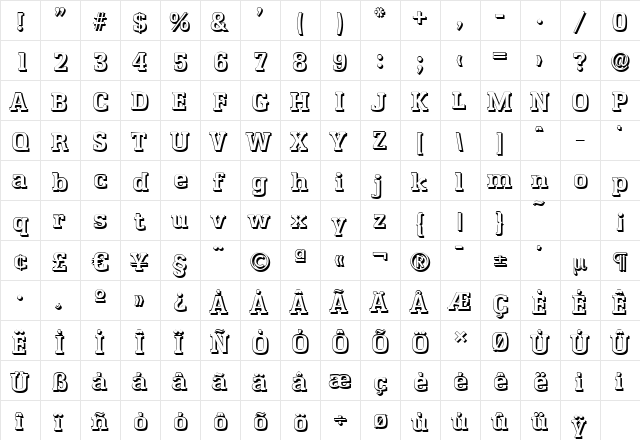
EnschedeShadow Bold
Design Context for EnschedeShadow Typeface
EnschedeShadow is built around its visual character rather than neutral utility — its distinctive forms are designed to make an impression at display sizes. Its bold stroke weight gives it real presence on the page.
Font Pairing: Pair with a clean neutral sans-serif for body copy to let EnschedeShadow's character lead without overwhelming the composition.
Pro Tip: Use EnschedeShadow exclusively at display sizes — it was designed to be seen, not read at length. Let a neutral companion handle body copy.